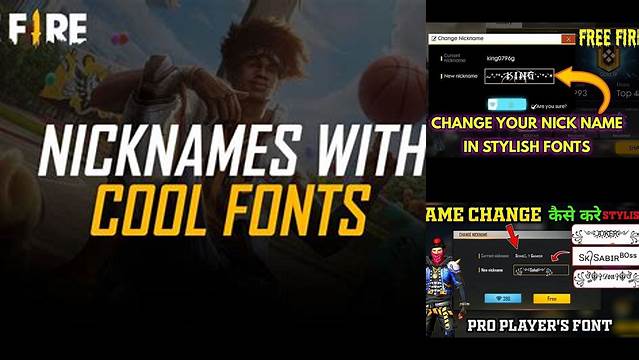
Hey guys! Want to stand out in Free Fire with a super cool nickname? You've come to the right place! Let's dive into how you can get those awesome fonts for your in-game name and make your rivals jealous.
Cool Fonts for Free Fire Nicknames
Let's explore the various awesome fonts available for spicing up your Free Fire nickname. Using cool fonts is a fantastic way to add personality and flair to your in-game presence. There are tons of options, from sleek and modern styles to edgy and gothic designs. Many websites and apps offer a wide selection of fonts that you can easily copy and paste into your Free Fire profile. When selecting a font, consider what kind of vibe you want to project – are you a fierce warrior, a stealthy assassin, or a fun-loving teammate? Your font can be a visual representation of your gaming persona, so choose wisely! Experiment with different fonts until you find one that perfectly matches your style and makes your nickname pop. Remember, a unique and eye-catching nickname can help you stand out from the crowd and leave a lasting impression on other players.
Free Fire Nickname Generator with Stylish Fonts
One of the easiest ways to create a stylish Free Fire nickname is by using a nickname generator. These tools are designed to produce a variety of unique and eye-catching names with just a few clicks. Many of these generators also allow you to customize your nickname by adding special characters, symbols, and, of course, stylish fonts. Simply enter your desired name or a keyword, and the generator will provide you with a list of creative options to choose from. You can then browse through the suggestions and select the one that best suits your personality and gaming style. Some generators even offer advanced customization options, such as adjusting the font size, color, and spacing. This allows you to fine-tune your nickname to perfection and ensure that it stands out in the Free Fire lobby. Using a nickname generator is a quick and convenient way to create a memorable and unique identity for yourself in the game.
Using Font Generators for Free Fire
Using font generators for Free Fire is a game-changer. These nifty tools let you create unique and stylish nicknames without needing to be a design whiz. Simply type in your desired name, and the generator spits out a bunch of cool variations with different fonts and symbols. It's like having a personal nickname designer at your fingertips! The best part is that most of these generators are free and super easy to use. You can experiment with different styles and combinations until you find the perfect nickname that represents your gaming persona. Plus, font generators often include a wide range of special characters and symbols that you can add to your nickname for extra flair. This allows you to create a truly one-of-a-kind identity that will make you stand out from the crowd in the Free Fire lobby. So, if you're looking to level up your nickname game, definitely give a font generator a try!
Stylish Text Generators for Free Fire
Stylish text generators for Free Fire are your secret weapon for creating eye-catching nicknames. These tools go beyond simple font changes, allowing you to add various effects and decorations to your text. Think of things like strikethroughs, underlines, bubbles, and more! These generators often offer a wide range of customization options, allowing you to fine-tune your nickname to perfection. You can adjust the size, color, and spacing of the text, as well as add special characters and symbols to make it truly unique. Some generators even allow you to create animated text effects, which can really make your nickname stand out in the Free Fire lobby. Using a stylish text generator is a great way to add personality and flair to your in-game identity and make a lasting impression on other players. So, if you're looking to take your nickname game to the next level, be sure to check out some of the available stylish text generators online.
Free Fire Nickname Font Styles
Let's talk about Free Fire nickname font styles. There's a whole universe of options beyond the default font! Think about bold, italic, cursive, and even upside-down text! Each style brings a different vibe to your nickname. Bold fonts can make you look strong and assertive, while italic fonts can add a touch of elegance and sophistication. Cursive fonts can give your nickname a more playful and whimsical feel, while upside-down text can be a fun and attention-grabbing way to stand out from the crowd. When choosing a font style, consider your personality and the image you want to project in the game. Do you want to be seen as a fierce competitor, a stylish teammate, or a fun-loving jokester? Your font style can be a powerful tool for communicating your gaming persona to other players. So, experiment with different styles and find the one that best represents you!
Unique Symbols for Free Fire Nicknames
Adding unique symbols for Free Fire nicknames is the cherry on top! Symbols can add that extra bit of flair and personality to your in-game name. Think about stars, hearts, swords, and even miniature versions of popular characters. These symbols can be placed before, after, or even within your nickname to create a truly unique and eye-catching design. There are countless symbols to choose from, so you can really let your creativity shine. Some symbols are more common than others, so if you're looking to stand out, try to find some that are a bit more obscure or unusual. You can find symbols on various websites and apps that offer Free Fire nickname fonts and generators. Simply copy and paste the symbols you like into your nickname and arrange them in a way that looks visually appealing. With a little bit of experimentation, you can create a nickname that is both memorable and representative of your gaming style.
Free Fire Name Font Changer
A Free Fire name font changer is a tool or website that allows you to modify the appearance of your in-game name. Instead of using the default font provided by the game, you can use a font changer to select a different font style, size, or color. This can help you create a more unique and personalized nickname that stands out from the crowd. Many font changers also offer a variety of special characters and symbols that you can add to your name for extra flair. Using a font changer is a simple and easy way to express your individuality and make a lasting impression on other players in Free Fire. Whether you're looking for a bold and aggressive font or a more subtle and elegant one, a font changer can help you achieve the perfect look for your in-game name.
Cool Free Fire Nickname Ideas
Need some cool Free Fire nickname ideas? Don't worry, we've got you covered! Think about incorporating your favorite things into your nickname, like your favorite animal, color, or hobby. You could also use a combination of your real name and a cool-sounding word or phrase. Another popular option is to use a nickname that reflects your play style, such as "Headshot King" or "Stealth Assassin". The key is to be creative and come up with something that is both memorable and representative of your personality. Don't be afraid to experiment with different ideas and combinations until you find the perfect nickname that you're happy with. And remember, you can always use a nickname generator to get some inspiration or help you come up with something completely unique.
How to Change Your Nickname in Free Fire
So, you've got your awesome new nickname, but how to change your nickname in Free Fire? It's pretty simple! First, you'll need a Rename Card. You can usually get these from events or by purchasing them in the in-game store. Once you have a Rename Card, go to your profile and look for the edit icon next to your current nickname. Tap on it, and you'll be able to enter your new nickname. Make sure to double-check the spelling and font before confirming, as you can only change your nickname once per Rename Card. And that's it! You're now rocking your fresh new nickname in Free Fire.
Free Fire Nickname with Symbols
Elevate your in-game persona by crafting a Free Fire nickname with symbols! Strategic use of symbols can transform a simple name into a visually striking and memorable identifier. Think about incorporating elements that resonate with your gaming style, such as crossed swords for aggressive players, stealthy shadows for strategic gamers, or playful stars for those who enjoy a lighthearted approach. Placement is key – experiment with positioning symbols before, after, or even within your nickname to achieve the desired aesthetic. Numerous online resources offer a vast library of symbols compatible with Free Fire. So, let your creativity flow and design a nickname that truly represents you!
Free Fire Nickname Generator for Girls
Calling all female gamers! If you're looking for a Free Fire nickname generator for girls, you're in luck! There are plenty of online tools that can help you create a unique and stylish nickname that reflects your personality and gaming style. These generators often offer a variety of feminine-themed options, such as nicknames inspired by flowers, animals, or mythical creatures. You can also find generators that allow you to customize your nickname with special characters, symbols, and stylish fonts. Whether you're looking for a cute and playful nickname or a fierce and powerful one, a nickname generator can help you find the perfect name to represent you in the Free Fire world.
Free Fire Nickname Generator for Boys
Hey guys! Looking for the ultimate Free Fire nickname generator for boys? You've come to the right place! Ditch the boring names and get ready to create a unique, head-turning in-game identity. These generators are packed with cool options, from edgy and aggressive names to humorous and lighthearted ones. You can customize your nickname with a ton of different fonts, symbols, and special characters to make it truly your own. Whether you're a hardcore competitor or just looking to have some fun, a nickname generator can help you find the perfect name to strike fear into the hearts of your opponents.
Free Fire Nickname Font Copy Paste
The beauty of using special fonts in Free Fire is that you don't need to install anything! It's all about Free Fire nickname font copy paste. Find a font you love on a website or app, highlight it, copy it, and then paste it into the nickname field in Free Fire. It's that simple! Just make sure the font is compatible with the game, as some fonts may not display correctly. And remember, you'll need a Rename Card to change your nickname.
Stylish Nicknames for Gamers
Creating stylish nicknames for gamers is an art form! It's about finding that perfect balance between uniqueness, memorability, and personal expression. Your nickname is your identity in the gaming world, so it's important to choose something that represents you and your play style. Think about incorporating elements that reflect your personality, such as your favorite colors, animals, or hobbies. You can also use a combination of your real name and a cool-sounding word or phrase to create a nickname that is both personal and unique. And don't forget to experiment with different fonts, symbols, and special characters to add that extra bit of flair to your in-game name.
Free Fire Nickname Generator Online
Using a Free Fire nickname generator online is a quick and easy way to come up with a unique and stylish nickname. These generators typically offer a wide range of options, allowing you to customize your nickname with different fonts, symbols, and special characters. Simply enter your desired name or a keyword, and the generator will provide you with a list of creative suggestions to choose from. You can then browse through the options and select the one that best suits your personality and gaming style. Many online generators are free to use, making them a convenient and accessible resource for creating a memorable and eye-catching nickname.
Free Fire Nickname Generator App
Prefer using your phone? A Free Fire nickname generator app might be perfect for you! These apps offer the same functionality as online generators but with the convenience of being accessible right from your mobile device. You can easily browse through different fonts, symbols, and special characters, and customize your nickname on the go. Many apps also offer additional features, such as the ability to save your favorite nicknames or share them with friends. A nickname generator app is a great way to create a unique and stylish nickname anytime, anywhere.
Free Fire Nickname Stylish Text
Creating a Free Fire nickname with stylish text is a surefire way to stand out from the crowd. Forget the plain, boring default font – it's time to unleash your creativity and add some serious flair to your in-game name. There are tons of online tools and apps that allow you to generate stylish text with different fonts, symbols, and special characters. You can experiment with different styles and combinations until you find the perfect look for your nickname. Whether you're looking for a bold and aggressive font or a more subtle and elegant one, stylish text can help you express your individuality and make a lasting impression on other players.
How to Make a Stylish Free Fire Nickname
So, how to make a stylish Free Fire nickname that everyone will envy? First, brainstorm some ideas that reflect your personality and gaming style. Think about your favorite colors, animals, or hobbies, and try to incorporate them into your nickname. Then, head over to a nickname generator website or app and experiment with different fonts, symbols, and special characters. Don't be afraid to get creative and try out different combinations until you find something that you truly love. And remember, your nickname is your identity in the game, so choose something that you're proud to represent.
Free Fire Nickname Font Generator Online
A Free Fire nickname font generator online is your best friend when it comes to creating a unique and eye-catching in-game name. These generators offer a wide range of fonts, symbols, and special characters that you can use to customize your nickname and make it stand out from the crowd. Simply enter your desired name or a keyword, and the generator will provide you with a list of creative suggestions to choose from. You can then browse through the options and select the one that best suits your personality and gaming style. Most online generators are free to use, making them a convenient and accessible resource for creating a memorable and stylish nickname.
Free Fire Stylish Name Maker
Think of a Free Fire stylish name maker as your personal nickname designer! These tools provide you with all the resources you need to create a unique and eye-catching in-game name that perfectly reflects your personality and gaming style. From a vast library of fonts and symbols to advanced customization options, a stylish name maker puts the power of creativity in your hands. You can experiment with different styles and combinations until you find the perfect look for your nickname. Whether you're looking for a bold and aggressive name or a more subtle and elegant one, a stylish name maker can help you achieve the perfect result.
Free Fire Nickname Generator with Emojis
Want to add some extra personality to your nickname? Try using a Free Fire nickname generator with emojis! Emojis can be a fun and expressive way to communicate your emotions and add some visual flair to your in-game name. There are tons of different emojis to choose from, so you can really let your creativity shine. You can use emojis to represent your favorite things, express your mood, or simply add some humor to your nickname. Just be sure to choose emojis that are appropriate for the game and won't be offensive to other players.
How to Use Stylish Fonts in Free Fire
Okay, so you've found some awesome fonts, but how to use stylish fonts in Free Fire? It's super easy! Just copy the text with the stylish font from the website or app and paste it into the nickname field in your Free Fire profile. If it doesn't work, it means the font isn't supported by the game. Try a different font until you find one that works. And remember, you'll need a Rename Card to change your nickname.
Free Fire Name Style Generator
A Free Fire name style generator is a tool designed to help you create unique and visually appealing nicknames. These generators offer a variety of options, including different fonts, symbols, and special characters, that you can use to customize your name. They often have user-friendly interfaces where you can preview the name in various styles before finalizing it. This allows you to experiment and find a style that perfectly represents your personality and gaming style in Free Fire.
Stylish Free Fire Names for Pro Players
Want a name that screams skill? Let's talk stylish Free Fire names for pro players. These names often incorporate a sense of power, precision, and dominance. Think about using words like "Ace," "Elite," "Shadow," or "Viper" in your nickname. You can also use symbols that represent strength and skill, such as swords, stars, or crowns. The key is to create a nickname that is both intimidating and memorable, so that other players will know that you mean business when they see your name in the lobby.
Free Fire Nickname Font Download APK
While you don't technically download fonts, you might see something called a Free Fire nickname font download APK. Be careful with these! APK files can be risky, as they might contain viruses or malware. It's generally safer to use online font generators or apps from trusted sources like the Google Play Store or Apple App Store.
Best Fonts for Free Fire ID
Choosing the best fonts for your Free Fire ID is all about finding the right balance between style and readability. You want a font that is eye-catching and unique, but also easy to read and recognize. Bold and slightly stylized fonts tend to work well, as they stand out from the crowd without sacrificing legibility. It's also important to consider the overall aesthetic of your ID and choose a font that complements your chosen symbols and colors. Experiment with different fonts and ask for feedback from your friends to find the perfect font for your Free Fire ID.
Free Fire Unique Name Style
Creating a Free Fire unique name style involves more than just picking a cool font. It's about crafting an identity that stands out and reflects your personality. Think about incorporating elements that are meaningful to you, such as your favorite hobbies, interests, or even your personal philosophy. You can also use a combination of different fonts, symbols, and special characters to create a truly one-of-a-kind name style. The key is to be creative and experiment until you find something that you're truly happy with.
Free Fire Name Edit Style
A Free Fire name edit style refers to the overall look and feel of your in-game name, including the font, symbols, and any other special characters you use. It's about creating a visually appealing and memorable name that represents your personality and gaming style. There are countless ways to customize your name edit style, so feel free to experiment and try out different combinations until you find something that you love. Just remember to keep it appropriate and respectful of other players.